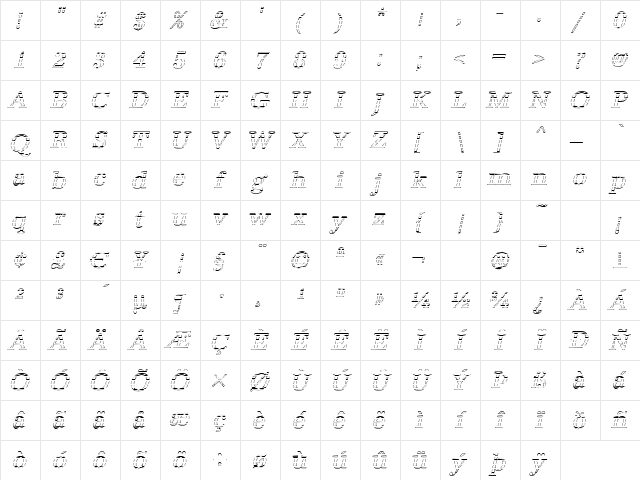
AntiquaGo Italic
Complete AntiquaGo Italic glyph index. Displaying only characters natively supported by AntiquaGo Italic font.
Design Context for AntiquaGo
AntiquaGo is a composed and adaptable typeface that performs quietly and consistently across a wide range of design contexts. The slanted form adds forward momentum and visual energy.
Pro Tip: Use AntiquaGo for emphasis, pull quotes, and subheadings where its slanted energy can add rhythm to the layout.